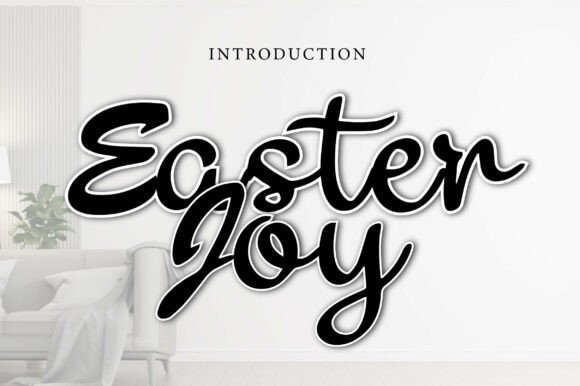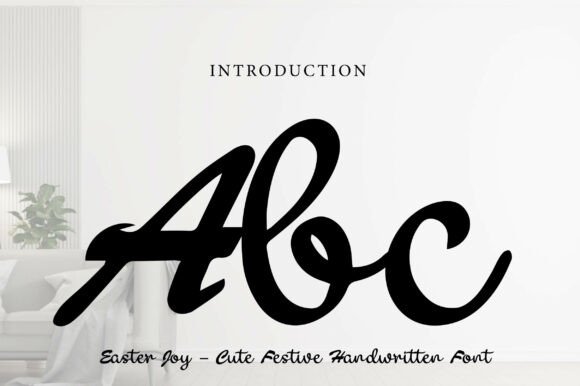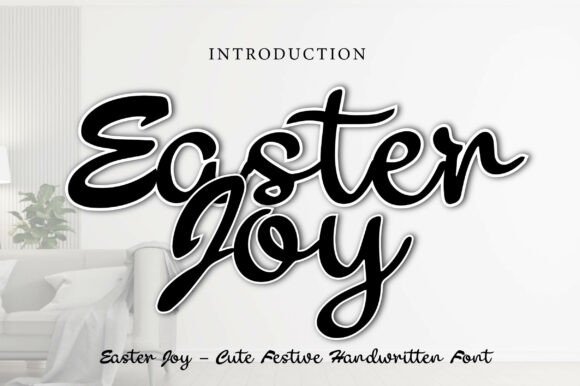
Easter Joy Font: The Perfect Typeface for Celebrating Life’s Brightest Moments
Are you looking for a font that embodies the spirit of Easter and joy? Look no further than Easter Joy Font, a delightful and festive handwritten typeface designed to bring a smile to your face. This charming font is perfect for designers and crafters who want to add a touch of whimsy and fun to their projects.
A Cute and Festive Handwritten Font
Easter Joy Font is a beautifully crafted handwritten font that features bold, flowing script letterforms with a “sunny-afternoon” soul. Its bouncy rhythm and thick, marker-style strokes give it a lively and energetic feel that’s perfect for capturing the joy and excitement of Easter. Whether you’re designing holiday greeting cards, bakery branding, or spring festival signage, this font is sure to bring a touch of warmth and personality to your projects.
Approachable Weight and Joyful Personality
One of the standout features of Easter Joy Font is its approachable weight and joyful personality. The font’s bold yet friendly demeanor makes it easy to read and understand, while its playful vibe adds a touch of whimsy and fun. This makes it the perfect choice for engaging “family-fun” social media overlays, holiday promotions, and other projects where you want to connect with your audience on a personal level.
Ideal for Holiday Projects and Spring Celebrations
Easter Joy Font is specifically designed for holiday projects and spring celebrations. Its festive and cheerful vibe makes it perfect for:
- Holiday greeting cards: Add a personal touch to your Easter and spring-themed greeting cards with this delightful font.
- Independent bakery branding: Give your bakery a playful and charming identity with Easter Joy Font.
- Spring festival signage: Create eye-catching signage for your spring festival or event with this bold and cheerful font.
- Social media overlays: Add a touch of fun and personality to your social media posts and stories with Easter Joy Font.
Why Choose Easter Joy Font?
So why choose Easter Joy Font for your next project? Here are just a few reasons:
- Unique and playful design: Easter Joy Font features a one-of-a-kind design that’s sure to stand out from the crowd.
- Easy to read and understand: The font’s approachable weight and clear letterforms make it easy to read and understand.
- Versatile: Easter Joy Font can be used for a wide range of projects, from holiday greeting cards to social media overlays.
- Fun and engaging: This font is designed to bring a smile to your face and add a touch of fun and personality to your projects.
Get Ready to Celebrate with Easter Joy Font
If you’re looking for a font that embodies the spirit of Easter and joy, look no further than Easter Joy Font. With its cute and festive design, approachable weight, and joyful personality, this font is the perfect choice for designers and crafters who want to add a touch of whimsy and fun to their projects. So why wait? Download Easter Joy Font today and get ready to celebrate life’s brightest moments in style!
In conclusion, Easter Joy Font is a delightful and festive handwritten typeface that’s perfect for designers and crafters who want to add a touch of joy and whimsy to their projects. With its bold and cheerful design, approachable weight, and joyful personality, this font is sure to bring a smile to your face and a touch of fun to your projects. So don’t miss out on this amazing opportunity to elevate your designs and celebrate life’s brightest moments with Easter Joy Font!